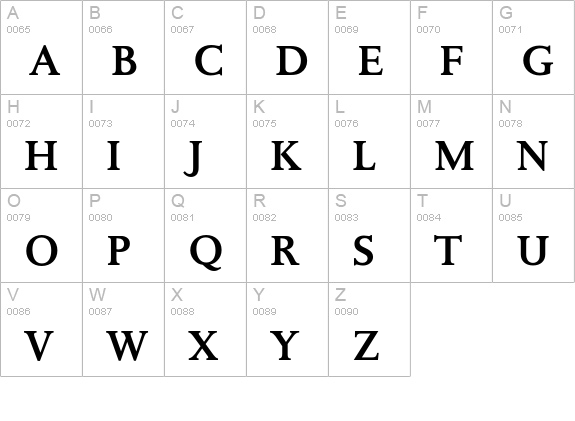
Palermo-Medium is a balanced, medium-weight variant in the Palermo typeface family \xE2\x80\x94 well suited to sub-headlines, navigation, and balanced editorial work.
Palermo-Medium is a stunning font that effortlessly combines elegance and modernity. With its clean lines and balanced proportions, this font is perfect for both digital and print projects. Its medium weight strikes the perfect balance between boldness and subtlety, making it versatile for various design applications. The Palermo-Medium font exudes confidence and sophistication. Its timeless appeal makes it suitable for a wide range of design projects, from branding and advertising to editorial and web design. Whether you are creating a logo, a poster, or a website, this font will add a touch of professionalism and style to your work. One of the best features of Palermo-Medium is that it is free to download at FontsMarket.com. This means that you can easily access this exceptional font without any cost. With its availability for free, Palermo-Medium offers a fantastic opportunity for designers and creatives to enhance their projects with a high-quality and aesthetically pleasing typeface. The versatility of Palermo-Medium allows it to work well in various design contexts. Its legibility and readability ensure that your message will be effectively communicated to your audience. Whether you are using it for headlines, body text, or captions, Palermo-Medium will always make a strong visual impact. With its sleek and modern design, Palermo-Medium is a font that effortlessly captures attention and leaves a lasting impression. Its versatility, elegance, and the fact that it is freely available to download at FontsMarket.com make it a must-have for designers and creatives looking to elevate their projects to the next level.